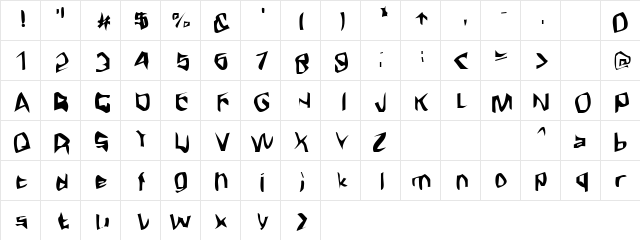
Fargas Regular
Design Context for Fargas Typeface
Fargas is a composed and adaptable typeface that performs quietly and consistently across a wide range of design contexts.